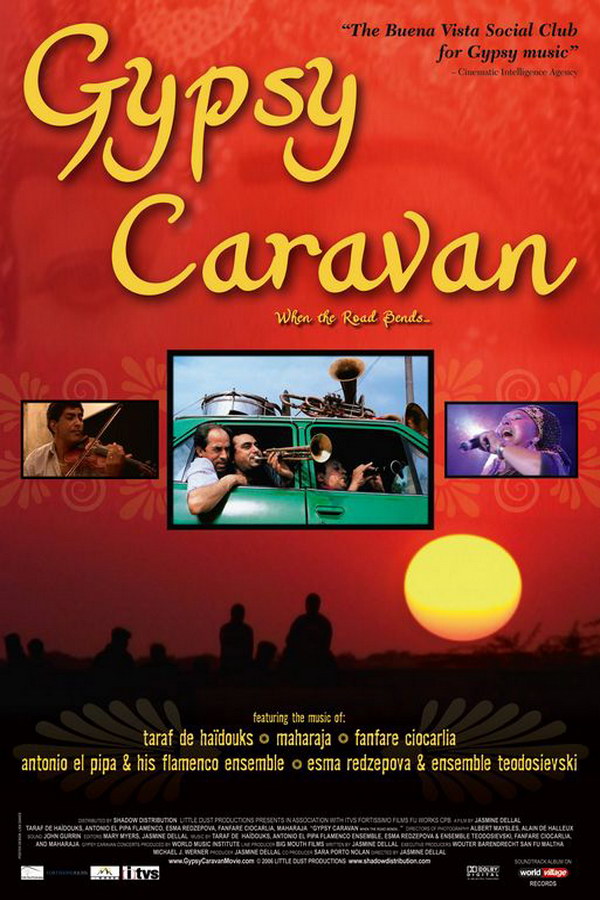
Gypsy Caravan Font
DocumentaryWhen the Road Bends: Tales of a Gypsy Caravan is a 2006 documentary by Jasmine Dellal that follows the travels and performances of several Romani musicians.